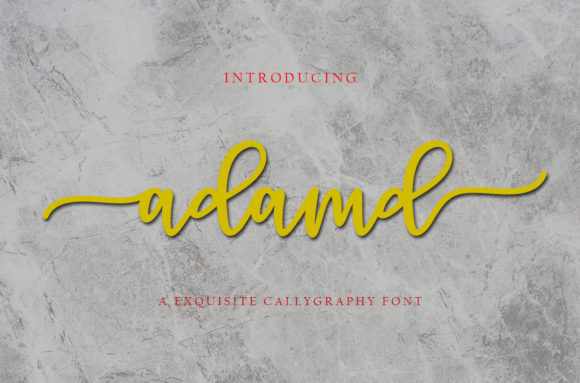
Behold Adamd, a splendid script font family that oozes modernity and simplicity while exuding an authentic charm like no other. Unleash your creativity and let Adamd work its magic, transforming your mundane designs into captivating masterpieces. Feel the thrill of your projects standing out from the crowd, leaving an unforgettable impression on all who encounter them.
Adamd is a font of many talents, effortlessly adapting to a myriad of design endeavors. Its versatility knows no bounds, seamlessly flowing from logos and branding to invitations and social media posts. Let Adamd's graceful strokes elevate your wedding invitations, adding a touch of elegance and personalization that will make your special day truly unforgettable. Craft social media posts that captivate audiences, leaving them scrolling for more as they bask in the beauty of Adamd's captivating curves.
Step into the world of Adamd and let your imagination run wild. Witness the transformation of ordinary designs into extraordinary creations, imbued with a sense of sophistication and charm that leaves a lasting impression. Embrace Adamd's allure and watch as it effortlessly enhances your design arsenal, igniting a new passion for your craft.